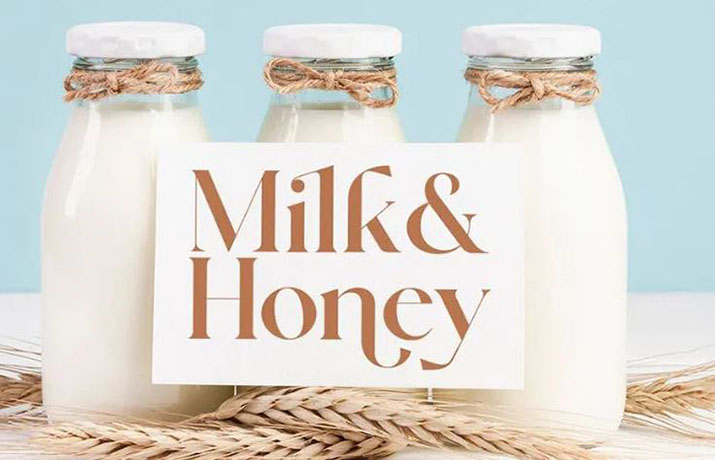
Aligha Font is a modern serif typeface that looks very elegant and classy. It was designed by Mur Zani and published by Zane Studio.
This typeface comes with clean lines and smooth curves that add an extra touch of class to any project. It is suitable for contemporary design projects.
Its crisp and timeless design makes it suitable for displaying titles, logos, branding, social media posters, banners, headers, magazines, product packaging, and invitations.
“Aligha typeface is available in two styles with OpenType features and includes 110 ligatures, alternatives, numbers, and punctuation. Moreover, it also supports 88 multilingual languages.”
| Style: | Serif, Bold, Display |
- Book covers, product designs, special event cards, web content, product designs, branding, packaging, headers, signs, flyers, YouTube thumbnails, magazines, labels, headers, advertisements, invitations, social media posters, banners, social media banners, flyers, advertisements, content writing, blogging, titles, signs, labels, cards, editorial design, and many more uses are all possible because of its bold and contemporary appearance.
This font supports 88 languages.